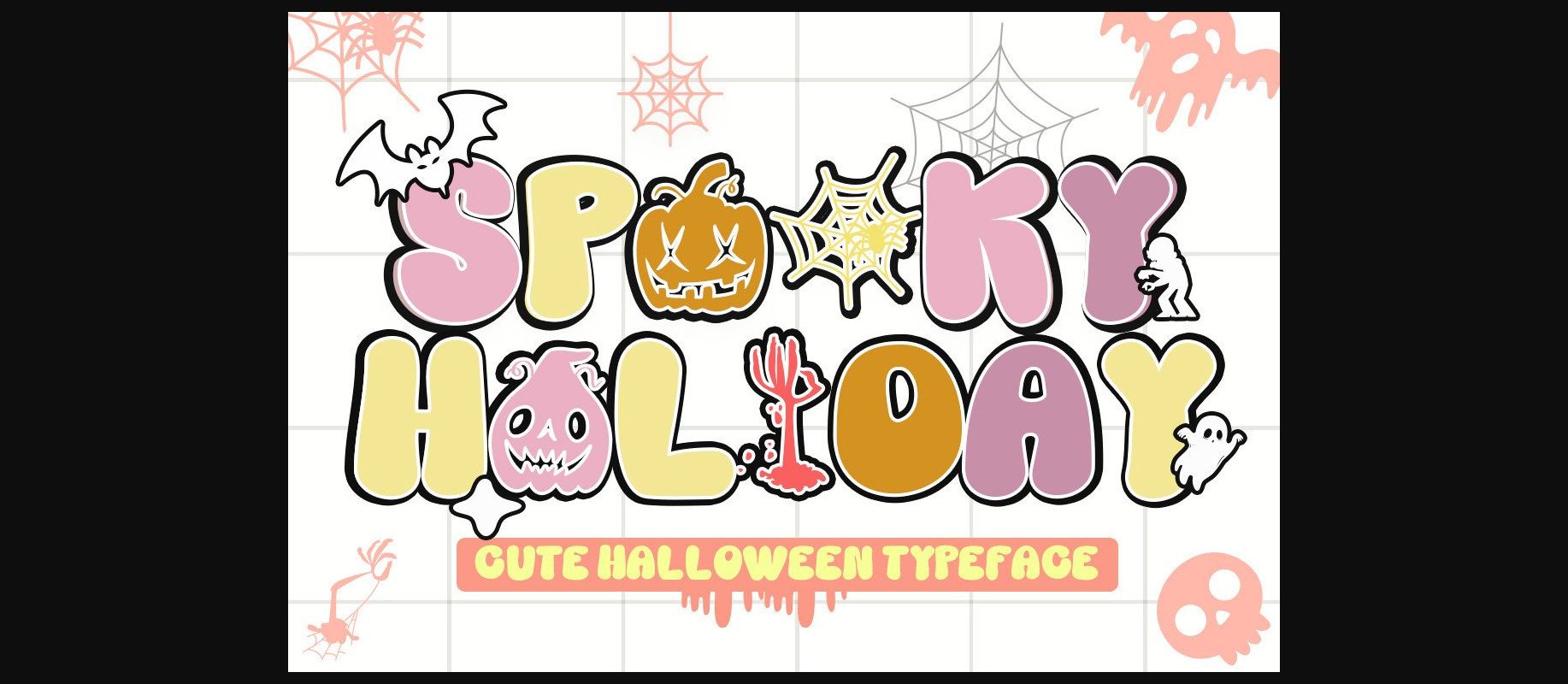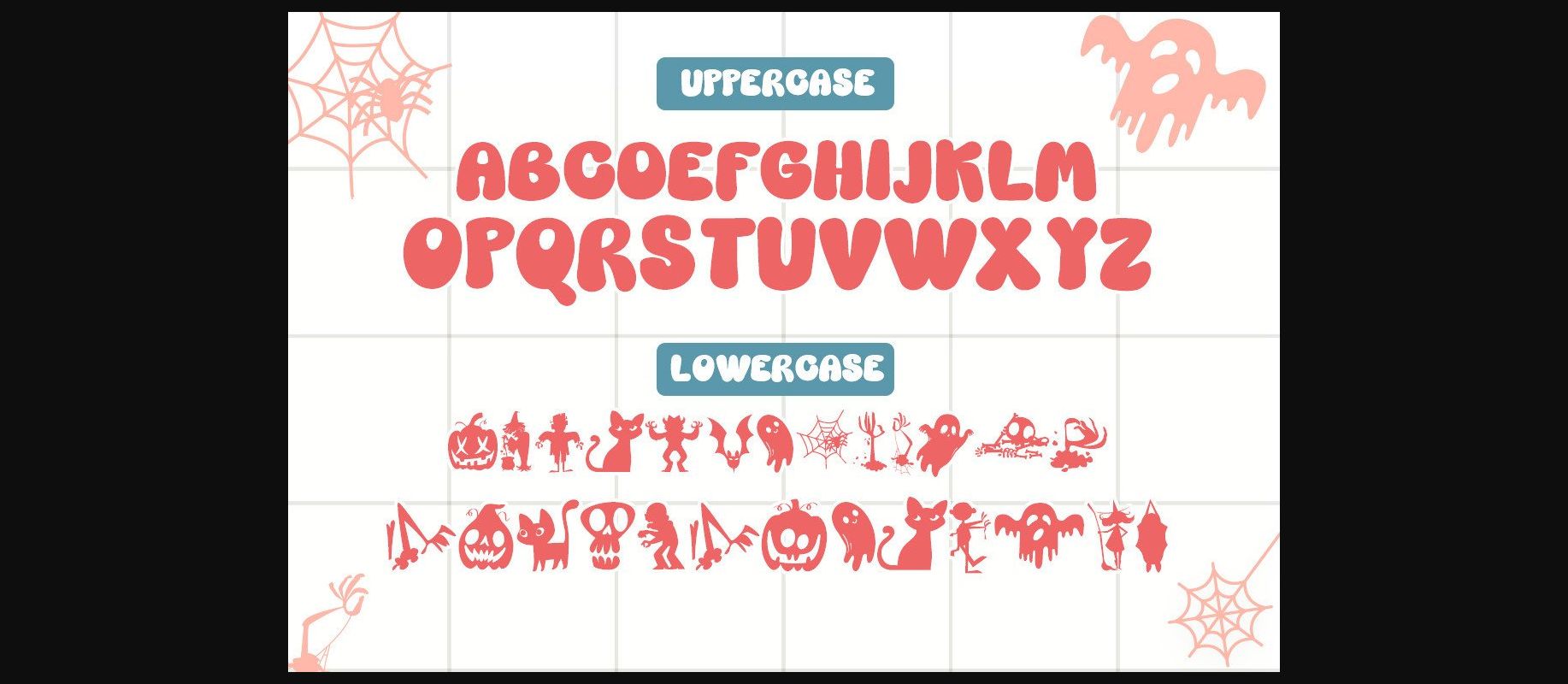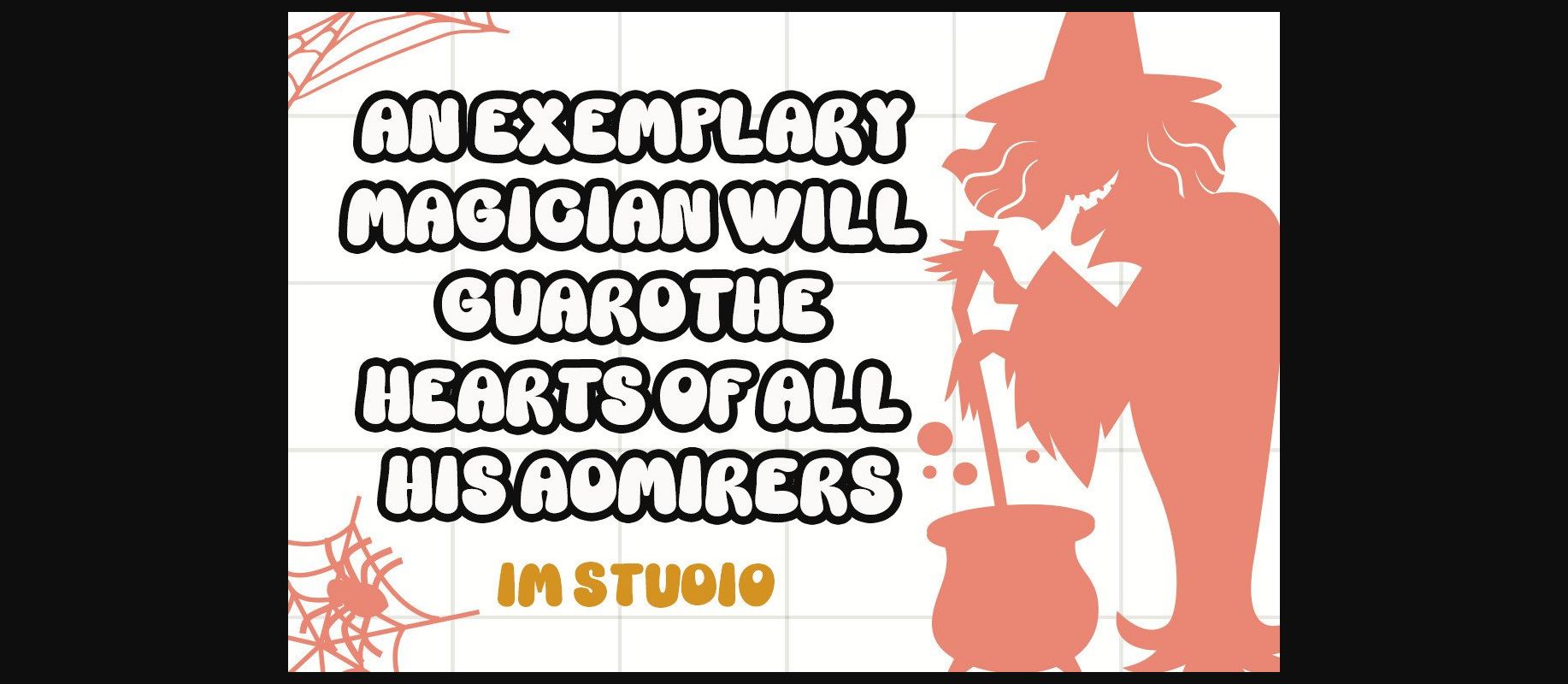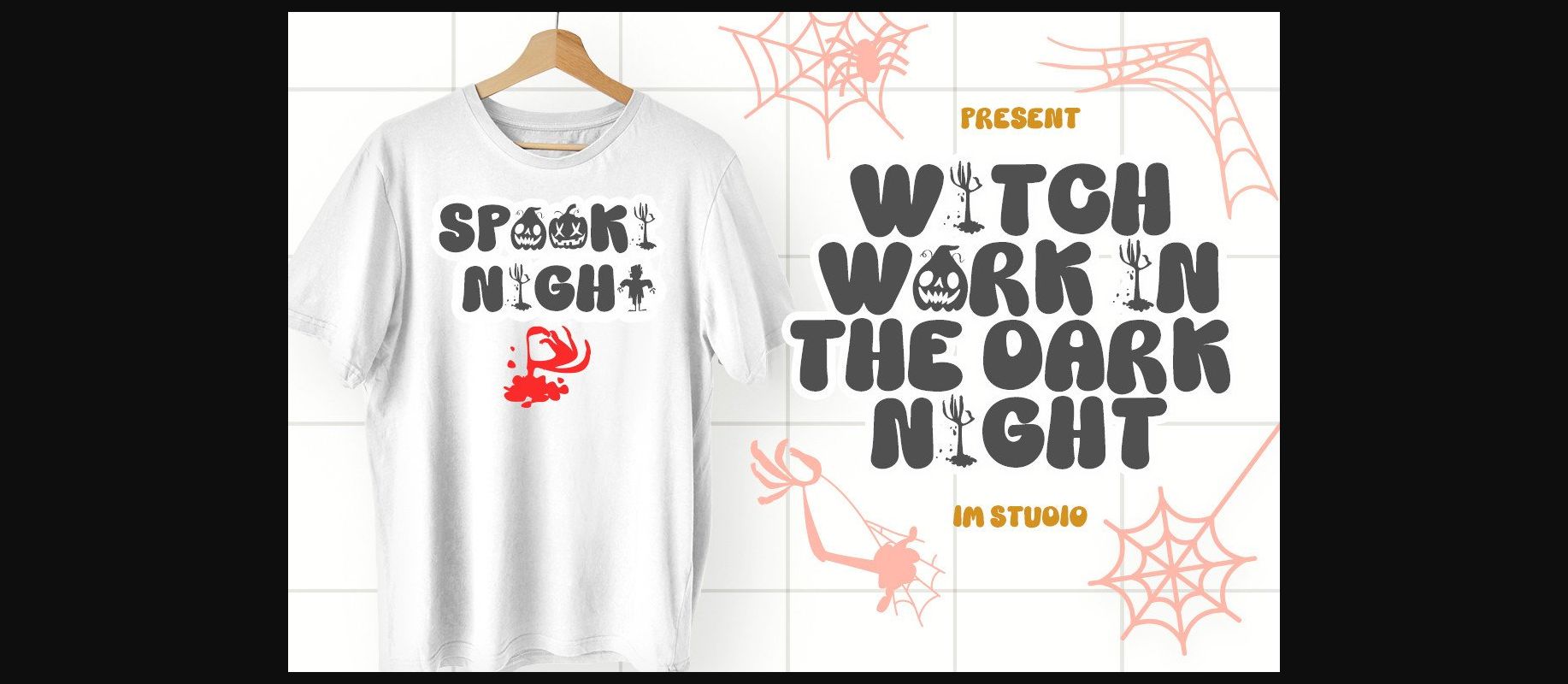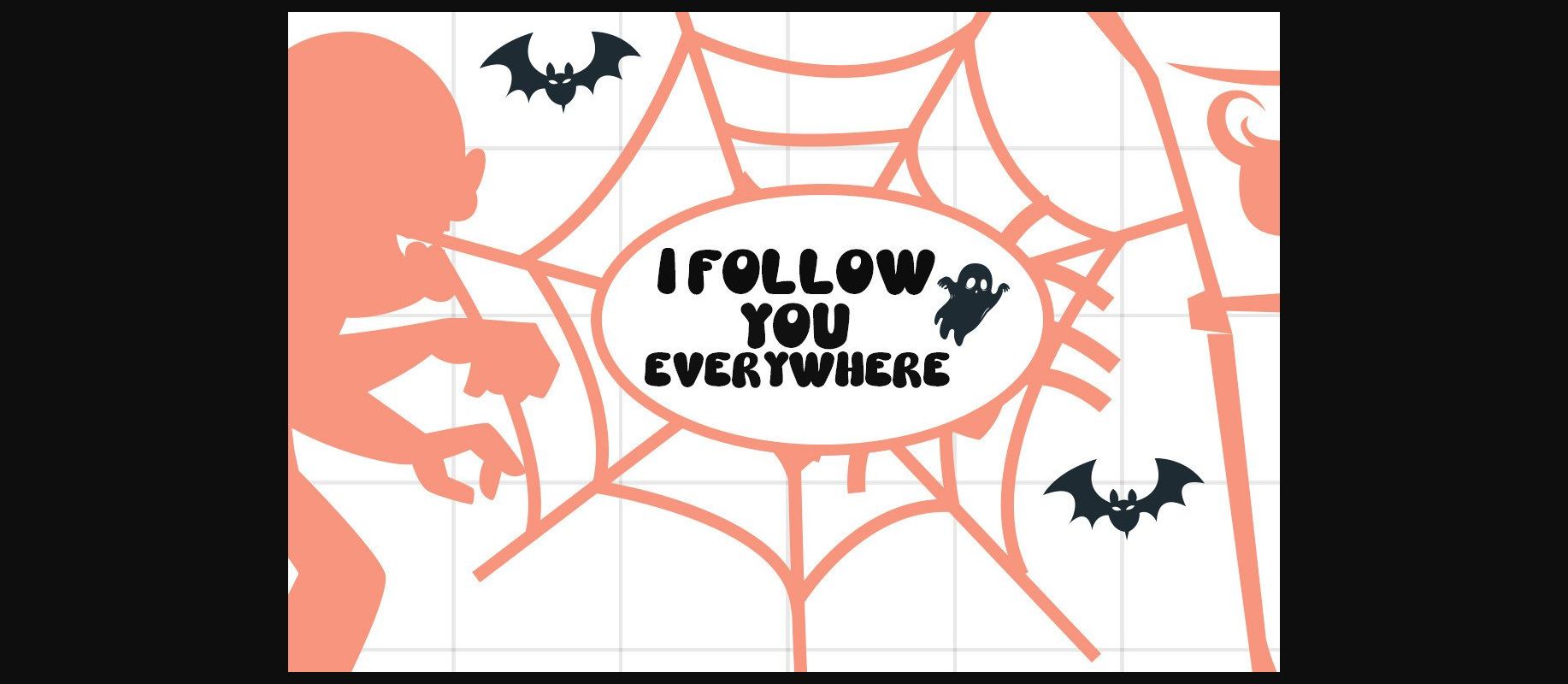
Spooky Holiday is a bold and spooky decorative font with cute letters. Add it to your Halloween crafts, horror movie posters, t-shirts, and anything else that requires a spectacular look.